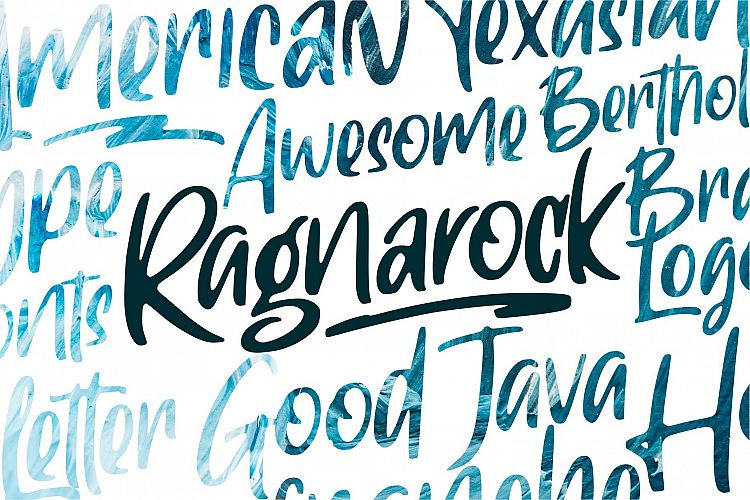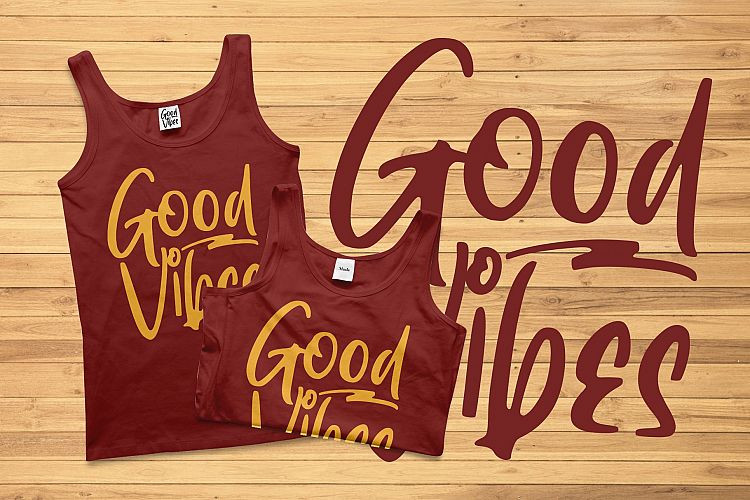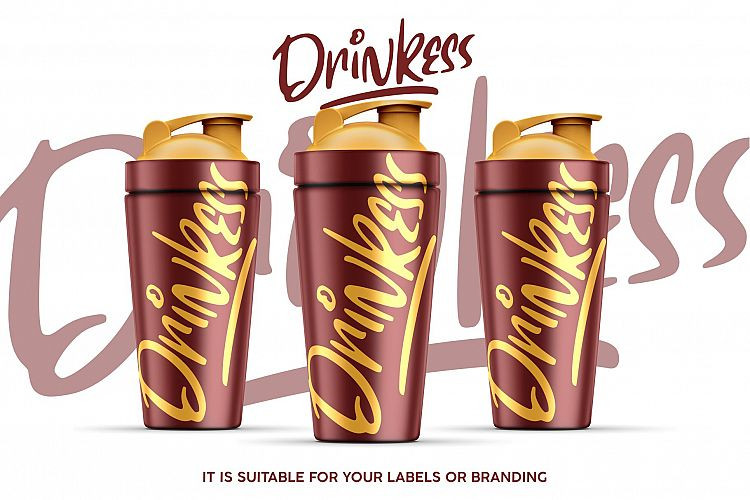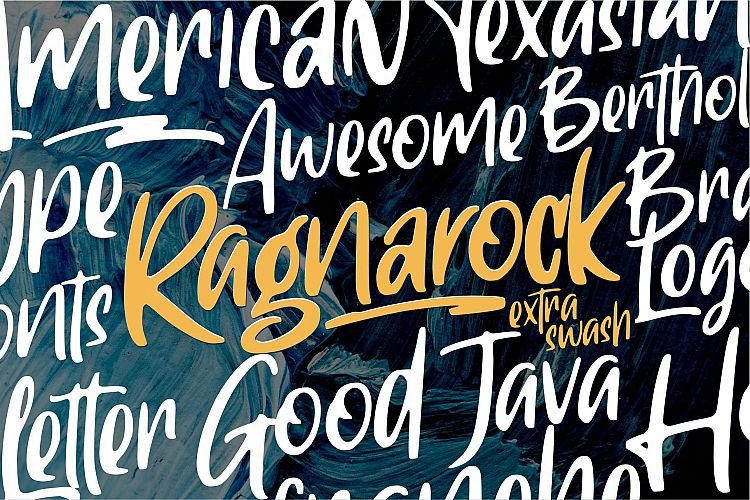
Ragnarock Script Font
I am so excited to introduce this new font to you! This is a modern script font with bold and fun style. Introducing Ragnarock Font. It is design and shared by Good Java Studio. RAGNAROCK! born from bold and fun style fonts. With many differenst swashes and alternate letters you need for the great work ever. That’s available on other file from letter A-Z and a-z. Versatile for design poster, logo, branding, label, quote, headline profil, banner, t-shirt design, packaging, magazine, brochure, and many more your amazing work with this fonts.